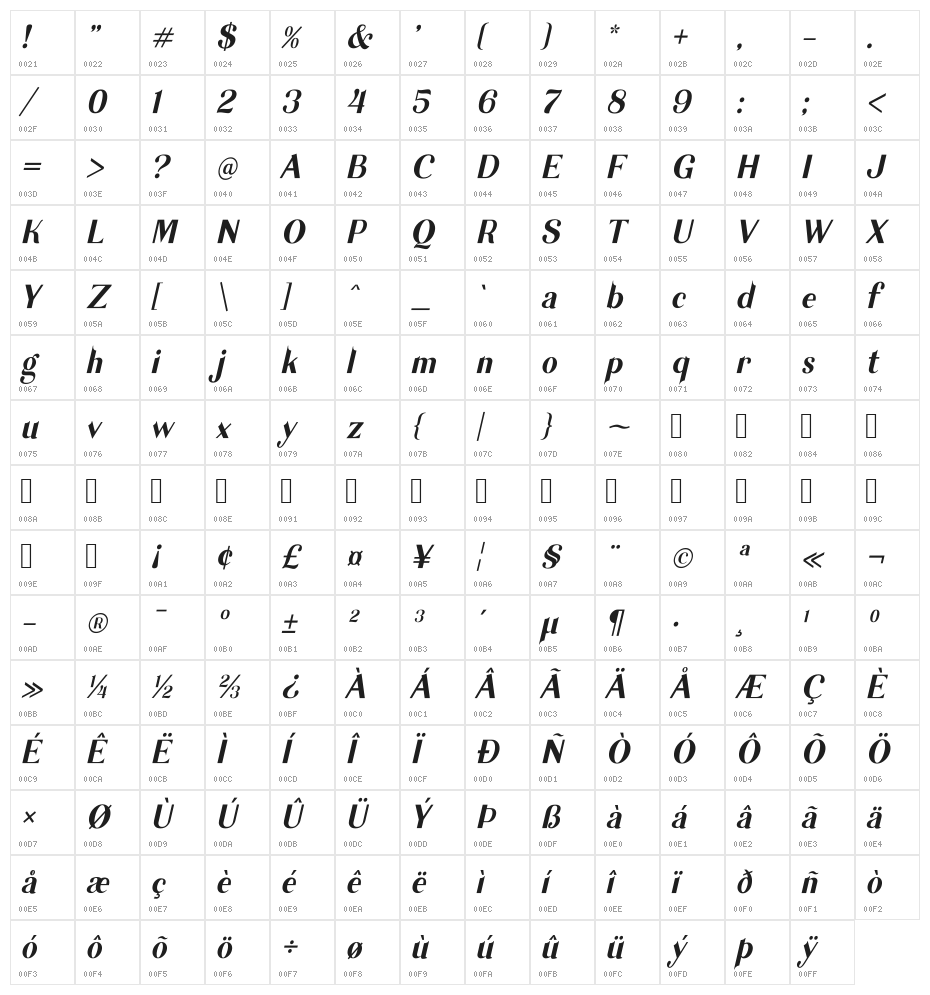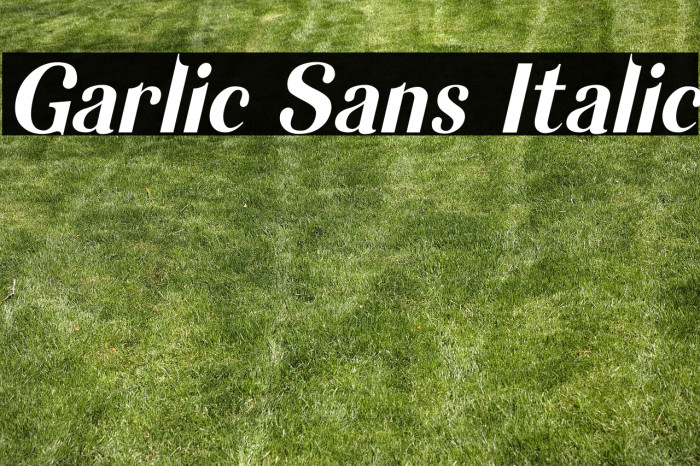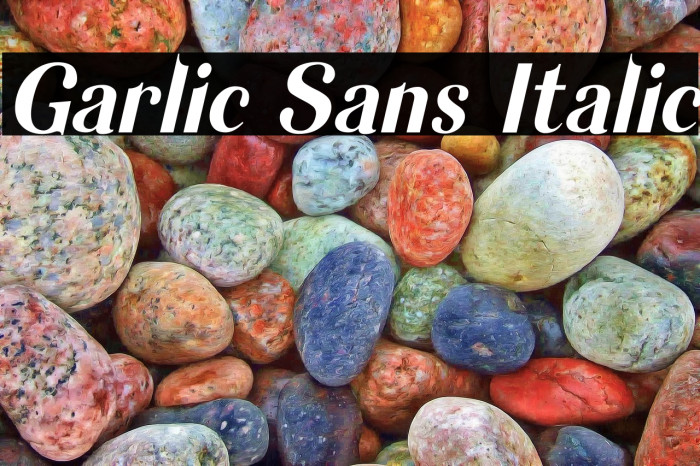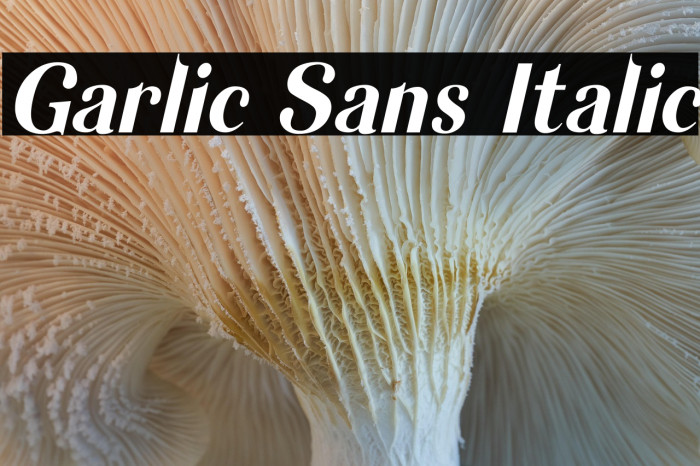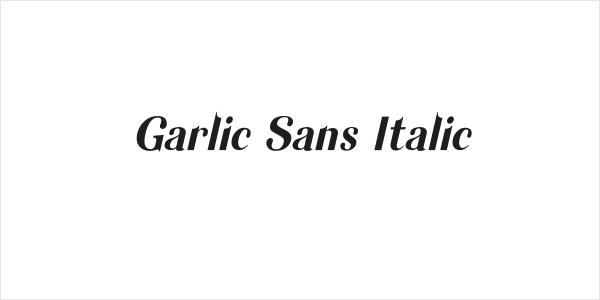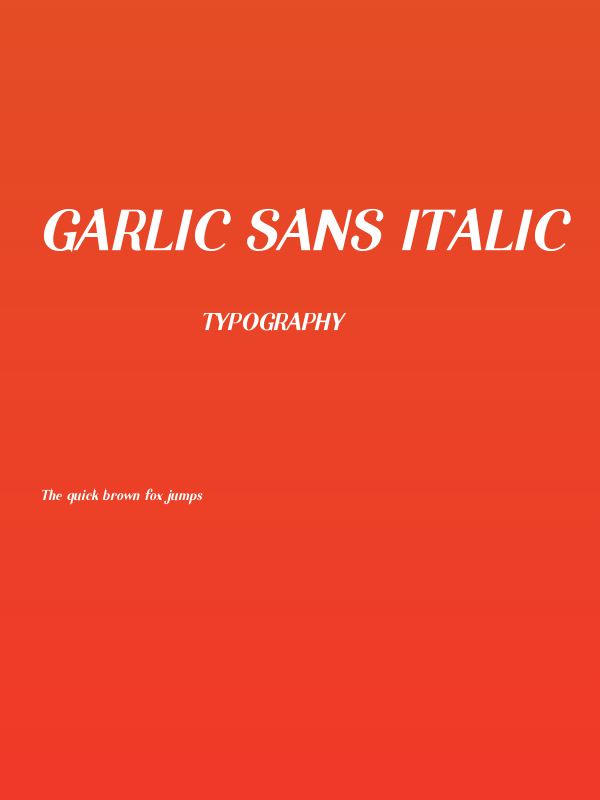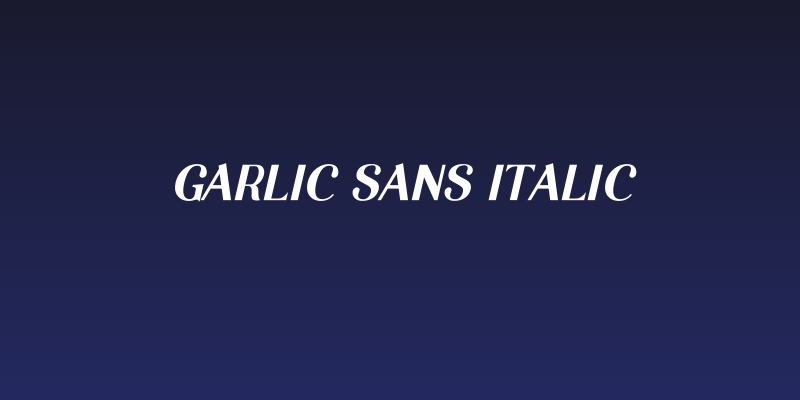
Garlic Sans Italic Font
Garlic Sans Italic Description
This font exudes a dynamic and elegant style with its italicized form, featuring a smooth, flowing design that adds a sense of movement and sophistication. The characters are slightly slanted, enhancing the font's graceful appearance. The strokes are moderately thick, providing a balanced contrast that ensures readability while maintaining an artistic flair. The uppercase letters are bold and commanding, while the lowercase letters maintain a consistent flow, making it versatile for various design needs. The numerals and special characters are crafted with the same attention to detail, ensuring uniformity across all elements.